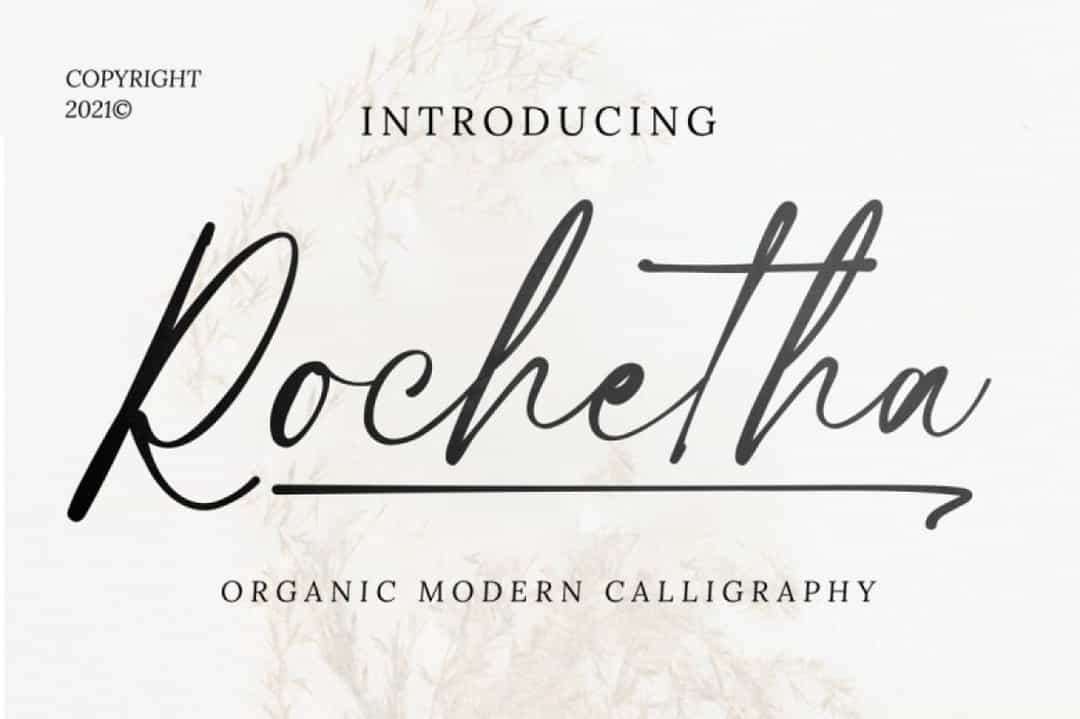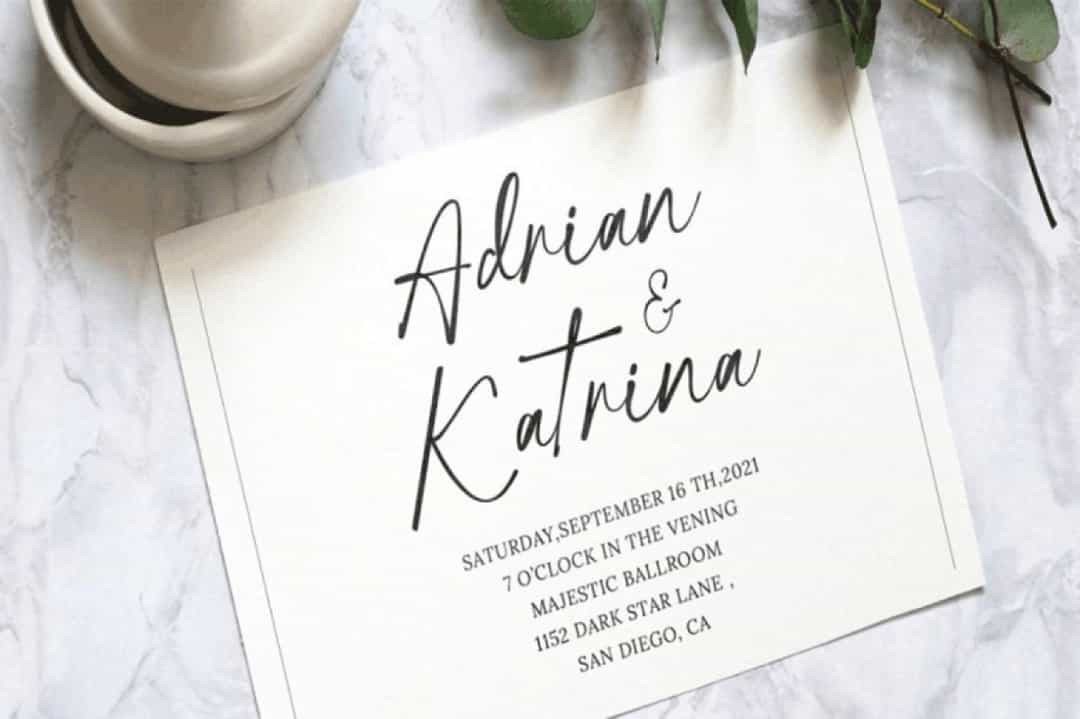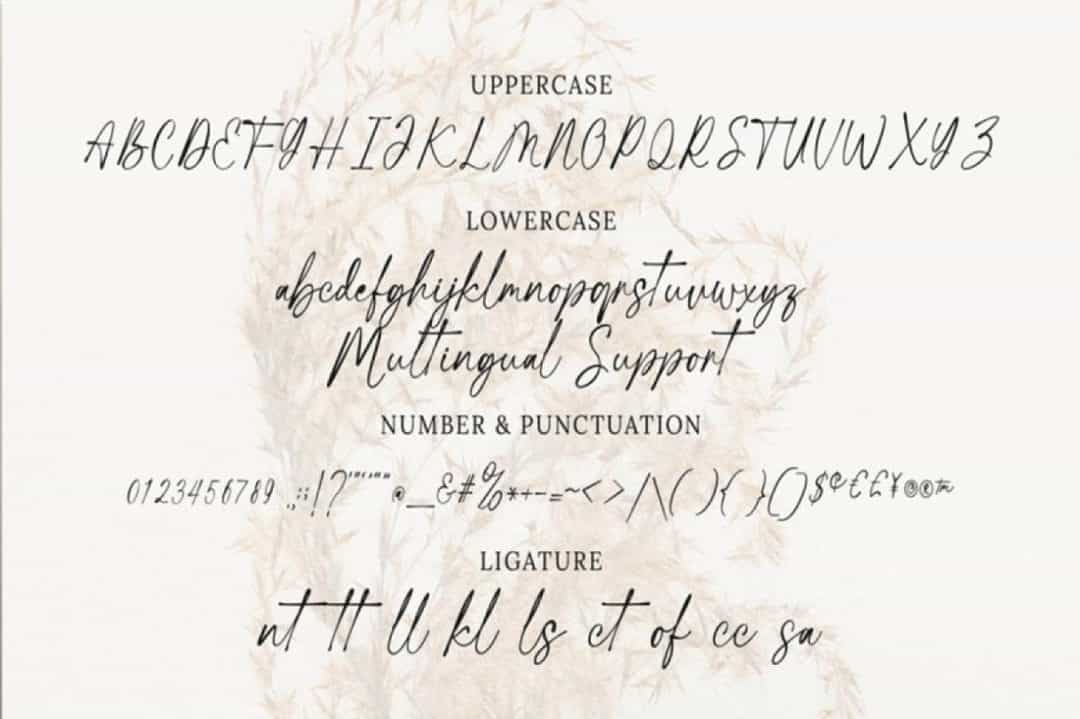
Rochetha can be described as an exquisite script calligraphy typeface designed with elegance in mind. Perfect for use on Instagram and other projects alike, Rochetha promises to turn any ideas you have into beautiful works of art!